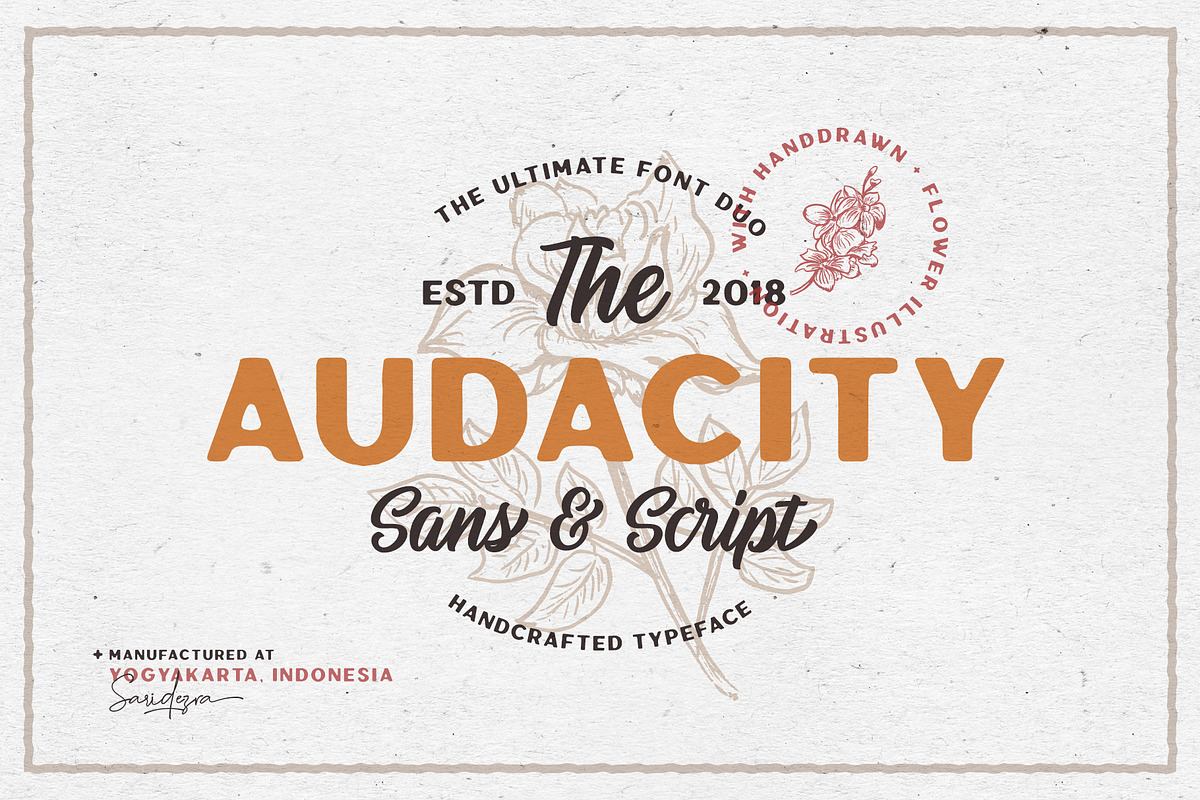
Audacity Font Duo Free Download is a versatile typeface pairing that combines a rough sans-serif with a freehand lettering script. This duo is designed to add a personal and dynamic touch to a variety of creative projects, including wedding invitations, greeting cards, logos, and branding materials.
Designed by Sarid Ezra, Audacity includes both sans and script styles, offering flexibility and a harmonious aesthetic. The package also comes with free flower illustrations, enhancing its utility for vintage and elegant design themes.